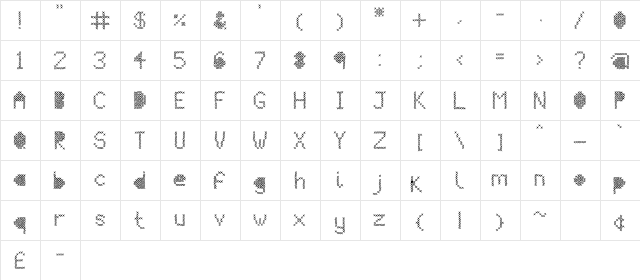
Mesh Stitch Regular
| Foundry | The Monotype Corporation |
| Designer | Monotype Type Drawing Office - Robin Nicholas, Patricia Saunders 1982 |
Design Context for Mesh Stitch Typeface
Mesh Stitch is a composed and adaptable typeface that performs quietly and consistently across a wide range of design contexts.